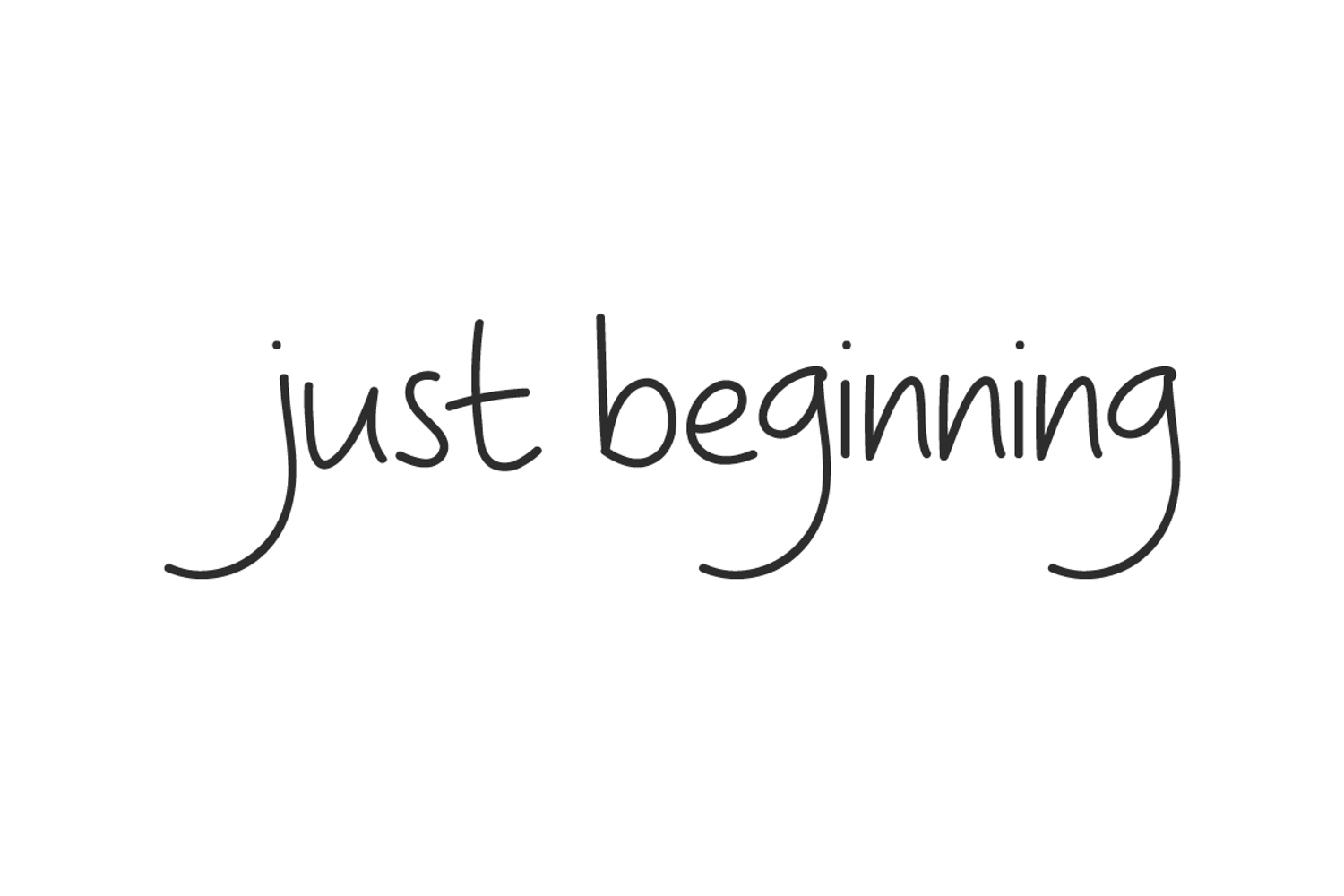
Just Beginning
Just Beginning Font is a casual handwriting font created with simplicity that combines the elegance and charm of a refined script. It is designed to enhance your creative projects with its touch of pers0nal and sophisticated style. Perfect for banners, blogs, flyer, invitations, logos, printed materials, quotes, signage, stationery, stickers, titles, watermarks, website, and more.
Just Beginning Font includes a complete set of Basic Uppercase and Lowercase Characters, Numbers, Punctuation Marks and Symbols. The words flow easily and bring a touch of relaxation to your typography. This will allow for smooth transitions between letters and create a truly authentic feel. Perfect for architect, authors, cafes, children’s goods brands, education, florist, graphic design, handicraft, home furniture, interior design, photography, pottery, printing, publishing, restaurant, and more.